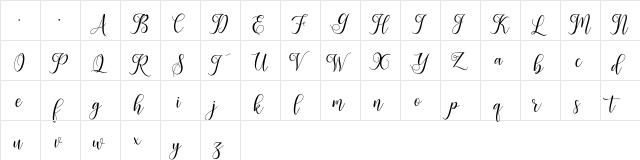
leisha Regular
| Designer | Amarlettering |
Design Context for leisha Typeface
leisha is a composed and adaptable typeface that performs quietly and consistently across a wide range of design contexts.